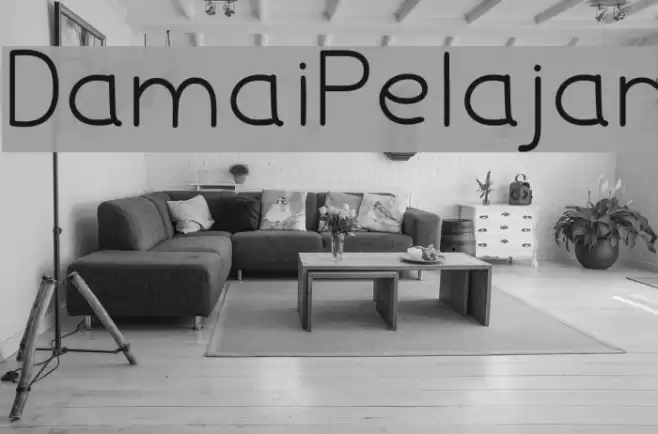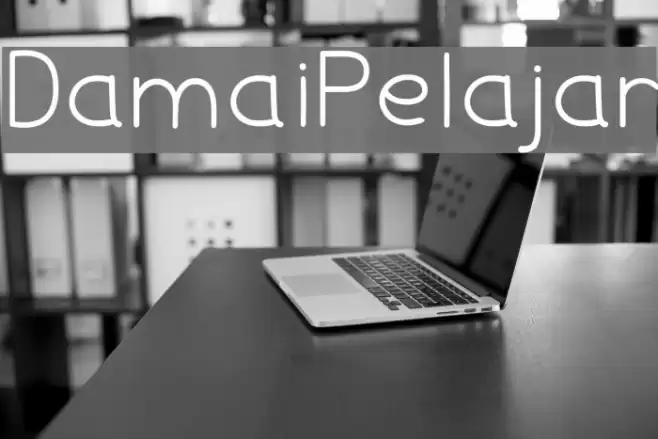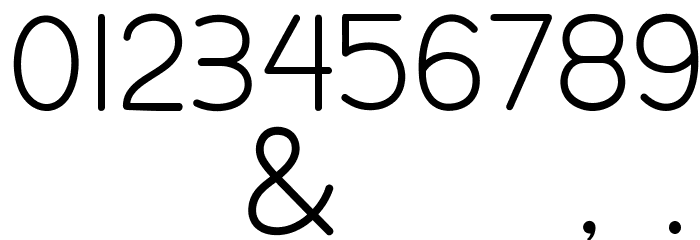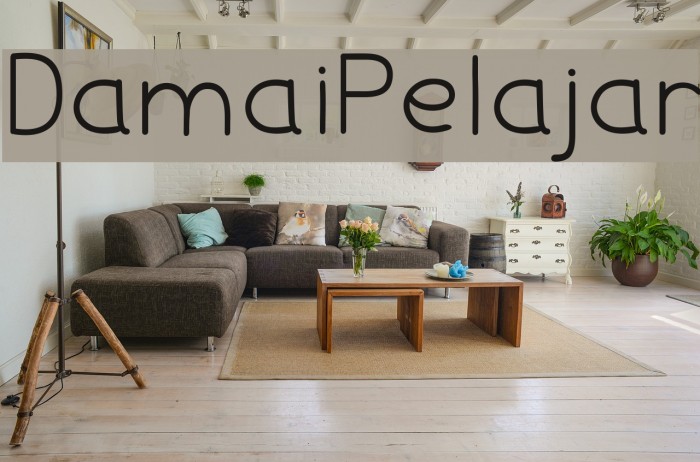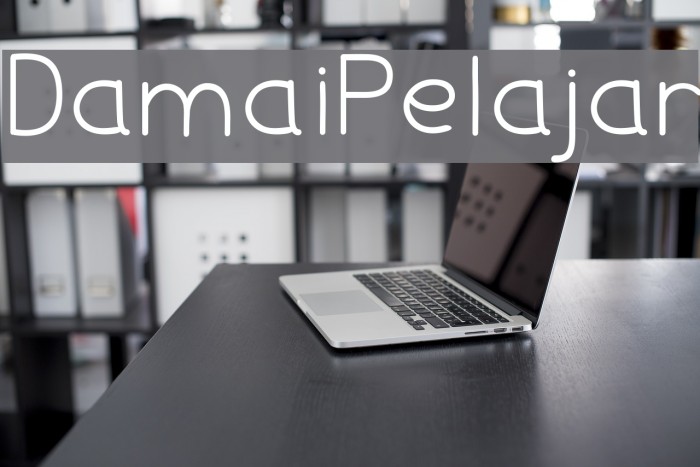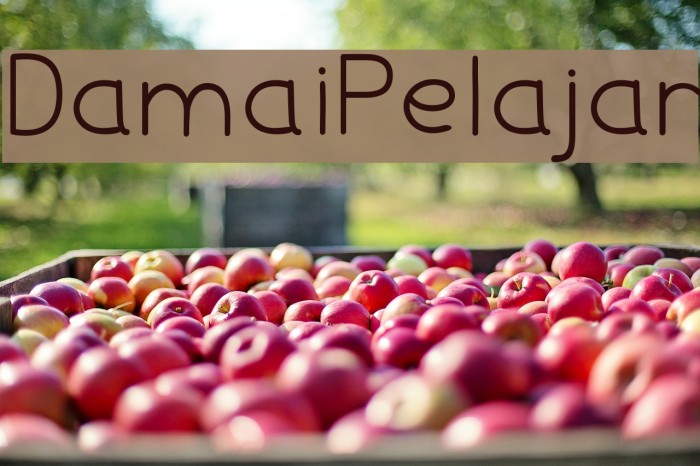
DamaiPelajar Font
DamaiPelajar Description
This font features a clean and modern sans-serif style with rounded edges, giving it a friendly and approachable appearance. The characters are evenly spaced, contributing to its readability. The uppercase letters are slightly taller than the lowercase, maintaining a consistent line weight throughout. The numerals are clear and distinct, matching the overall style of the alphabet. Special characters are designed to blend seamlessly with the letters and numbers, ensuring a cohesive look across all text elements.
A modern, rounded sans-serif font with consistent line weight and friendly appearance from Uncategorized fonts.